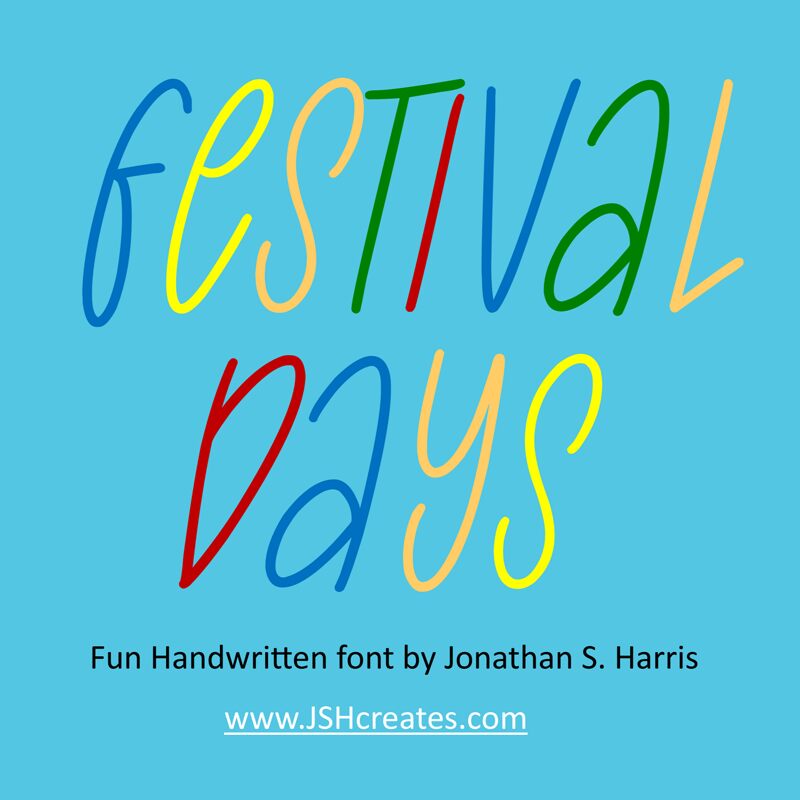
Festival Days by JSH creates is a charming handwritten font that adds a playful touch to any project. With its light weight and extra-condensed width, this font is perfect for creating eye-catching headlines on posters, flyers, and social media graphics. Its quirky style also makes it suitable for greeting cards, invitations, and other stationery designs. Festival Days has a fun and carefree vibe that can instantly lift the mood of any design. So go ahead and add some festive flair to your next project with Festival Days!